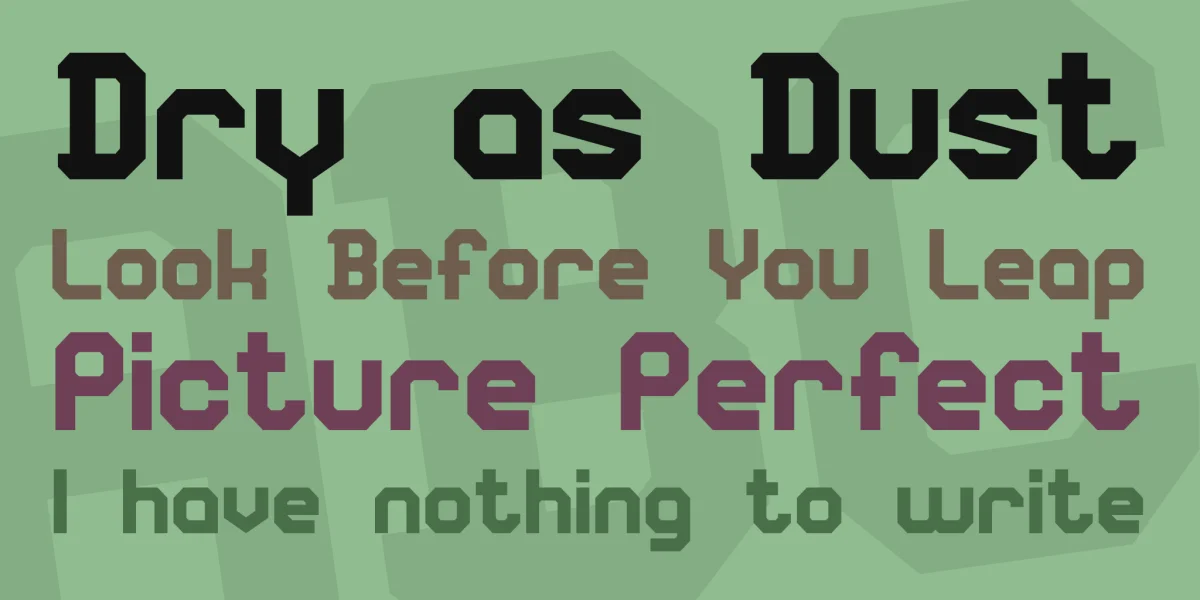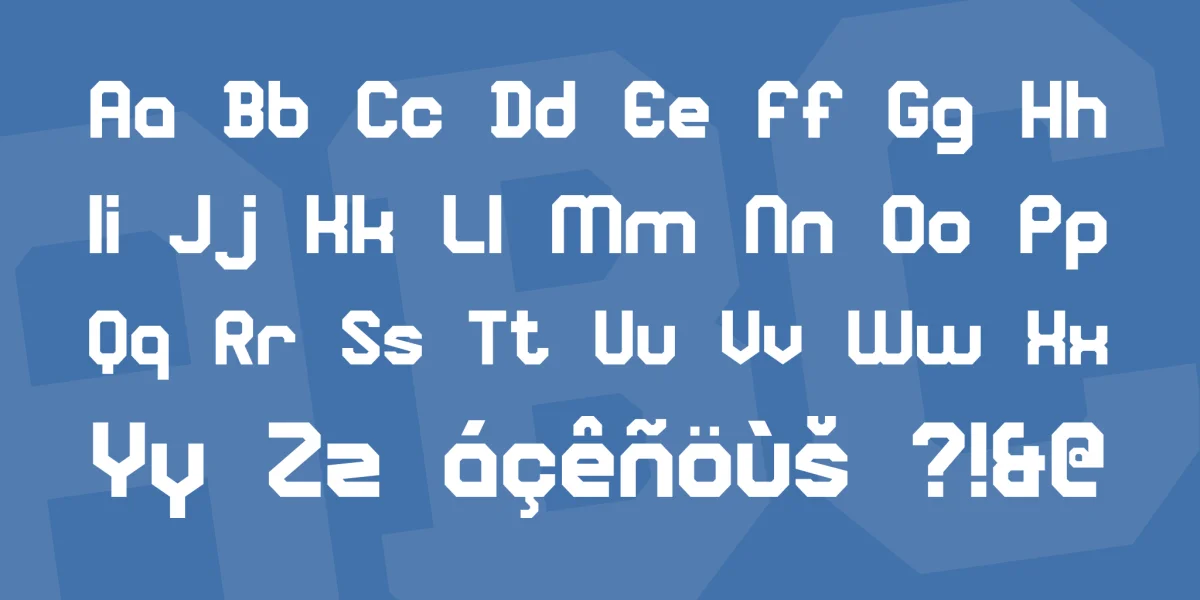
Square Block is a Decorative Font inspired by the architecture of Florence’s suburbs. A Monospaced Display Font with a massive structure, suitable for resoluted messages. Useful for advertisings, billboards, logos and headline.